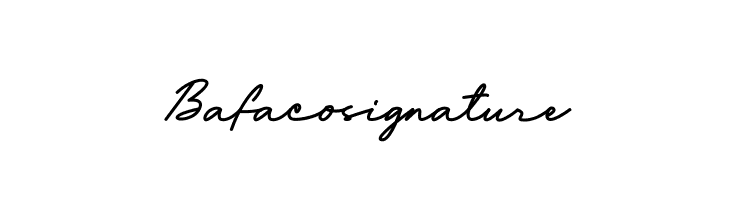
A dynamic, handwritten-style font with fluid strokes and expressive characters.
A playful handwritten font with thin, flowing strokes and a whimsical style.
A dynamic and fluid script font with elegant, flowing lines.
A casual, elegant handwritten font with smooth, flowing lines.